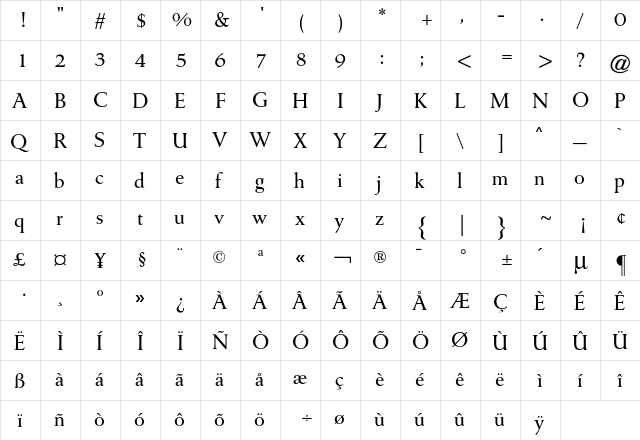
Holland Seminar CG Regular
Design Context for Holland Seminar CG Typeface
Holland Seminar CG offers clean, dependable letterforms without strong stylistic allegiance, making it a practical choice for designers who need flexibility.